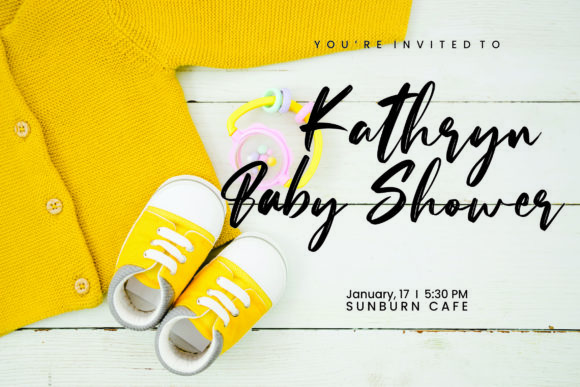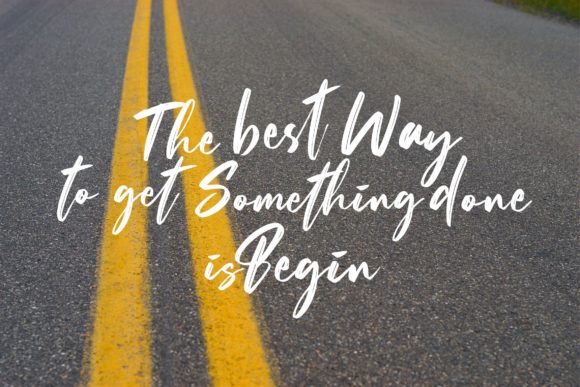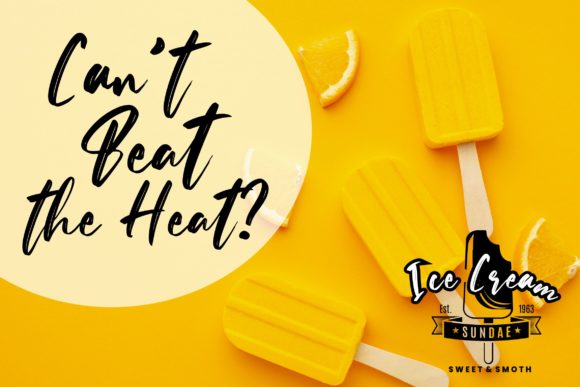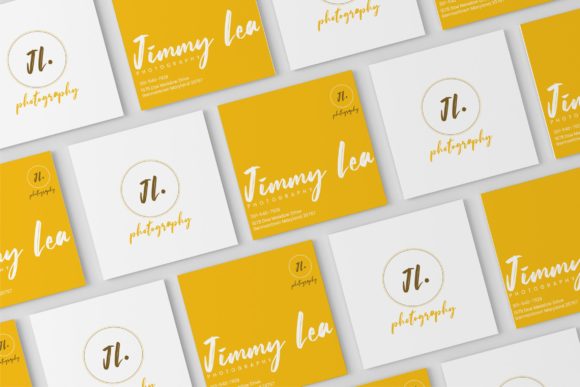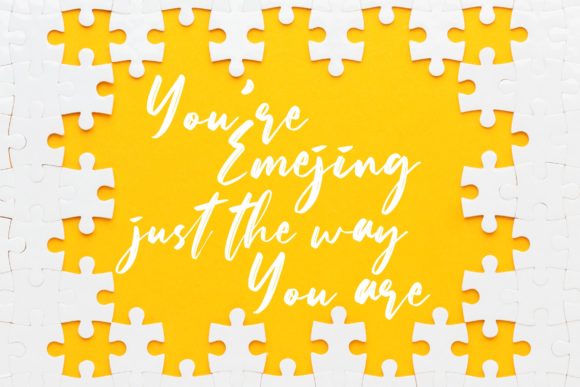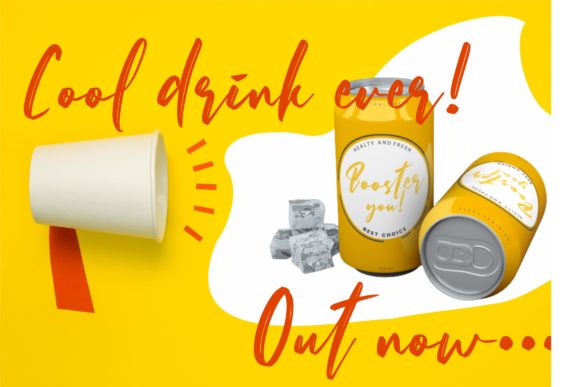
Introducing Ballitina Font: Elevate Your Designs with Elegance and Luxury
Are you looking for a font that can add a touch of sophistication and glamour to your designs? Look no further than Ballitina Font, an exciting handwritten script that features a flowing brush style. This beautiful font is perfect for designers and crafters who want to make their text appear elegant, luxurious, and modern.
What is Ballitina Font?
Ballitina Font is a unique and stylish handwritten font that is designed to make your text stand out. Its flowing brush style gives it a dynamic and artistic feel, making it perfect for a wide range of design projects. Whether you’re creating a logo, branding materials, or social media graphics, Ballitina Font is sure to impress.
Key Features of Ballitina Font
- Flowing Brush Style: Ballitina Font features a beautiful flowing brush style that gives it a dynamic and artistic feel.
- Elegant and Luxurious: This font is perfect for designs that require an elegant and luxurious touch.
- Modern and Sophisticated: Ballitina Font is designed to make your text appear modern and sophisticated.
- Handwritten Style: This font has a unique handwritten style that sets it apart from other fonts.
Uses of Ballitina Font
Ballitina Font is a versatile font that can be used for a wide range of design projects, including:
- Logo Design: Create a stunning logo for your business or brand with Ballitina Font.
- Branding Materials: Use Ballitina Font to create elegant and luxurious branding materials, such as business cards, brochures, and letterheads.
- Social Media Graphics: Make your social media graphics stand out with Ballitina Font.
- Packaging Design: Use Ballitina Font to create beautiful and eye-catching packaging designs.
Benefits of Using Ballitina Font
There are many benefits to using Ballitina Font in your designs, including:
- Unique and Stylish: Ballitina Font is a unique and stylish font that will set your designs apart from others.
- Elegant and Luxurious: This font will add an elegant and luxurious touch to your designs.
- Modern and Sophisticated: Ballitina Font will make your text appear modern and sophisticated.
- Easy to Read: This font is easy to read, making it perfect for body text and headings.
Tips for Using Ballitina Font
Here are some tips for using Ballitina Font in your designs:
- Use it for Headings: Ballitina Font is perfect for headings and titles.
- Pair it with Other Fonts: Pair Ballitina Font with other fonts to create a unique and stylish design.
- Use it for Branding: Use Ballitina Font consistently across your branding materials to create a cohesive look.
In conclusion, Ballitina Font is an exciting handwritten font that features a flowing brush style. This beautiful script can make your text appear elegant, luxurious, and modern. With its unique and stylish design, Ballitina Font is perfect for designers and crafters who want to elevate their designs. Whether you’re creating a logo, branding materials, or social media graphics, Ballitina Font is sure to impress.